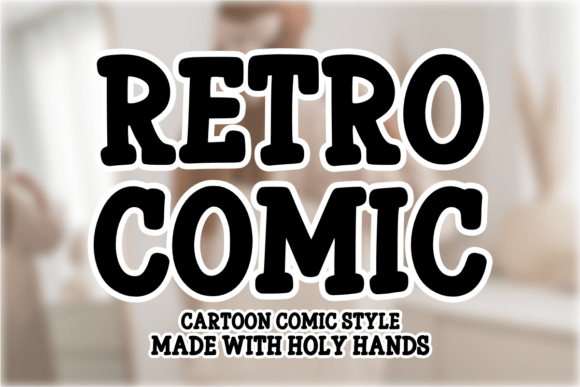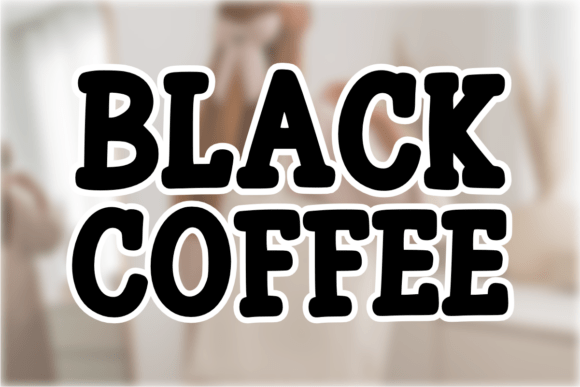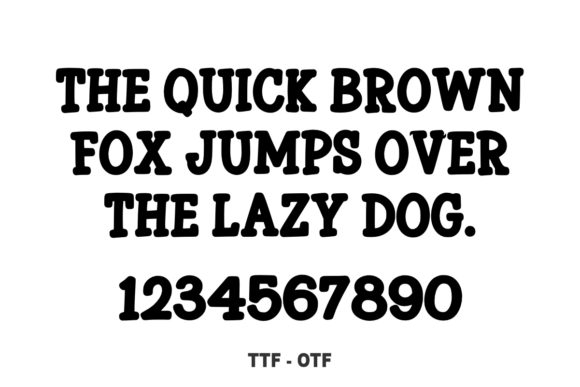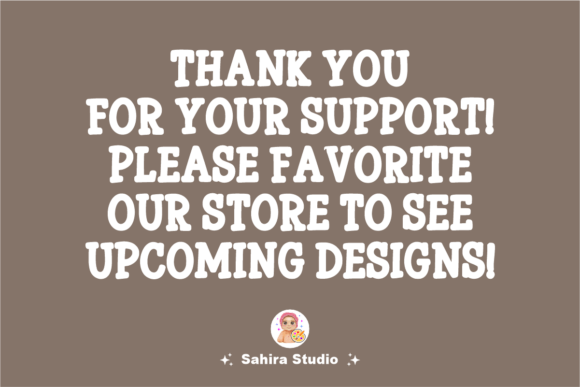
β¨ Make Your Designs Pop with Bold Classic β The Ultimate Cartoon Comic Font! β¨
Are you tired of using the same old fonts in your designs? Do you want to add a punch of energy and make your projects stand out? Look no further than Bold Classic, the ultimate cartoon comic font that’s perfect for designers and crafters alike! This high-impact display font features thick, chunky characters with a playful rounded finish, perfectly capturing that iconic retro comic book aesthetic.
The Power of Bold Classic
Bold Classic is built for versatility and is the go-to choice for designs that need to be loud, fun, and impossible to miss. Its heavy weight and clean outlines make it perfect for a wide range of projects, from superhero-themed party gear to bold social media graphics. Whether you’re a professional designer or a crafter, Bold Classic is the perfect font to add a touch of personality to your work.
Key Features of Bold Classic
- π Uppercase Alphabet β Massive, rounded letters that command attention.
- π’ Numbers & Basic Symbols β Matching heavy-duty digits for all your professional needs.
- π₯ Comic Style Aesthetic β Iconic βpop-artβ feel perfect for headlines and logos.
What Sets Bold Classic Apart
So, what sets Bold Classic apart from other fonts on the market? Here are just a few things that make it special:
- Unique Retro Aesthetic β The playful rounded finish and thick, chunky characters give Bold Classic a unique and eye-catching look that’s perfect for designs that need to pop.
- High-Impact Display Font β Bold Classic is designed to make a statement, with a heavy weight and clean outlines that make it perfect for headlines, logos, and other high-impact designs.